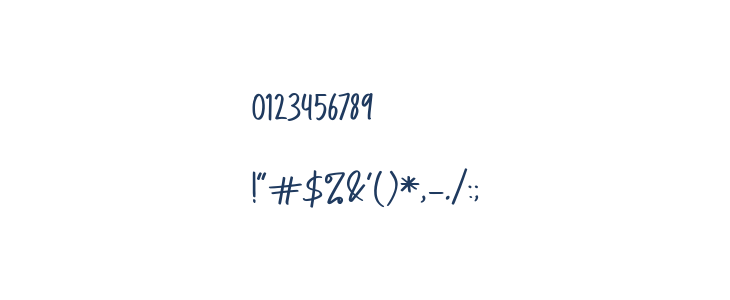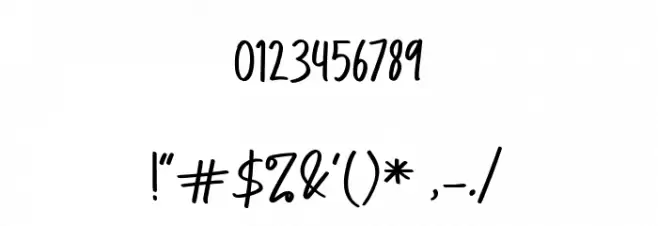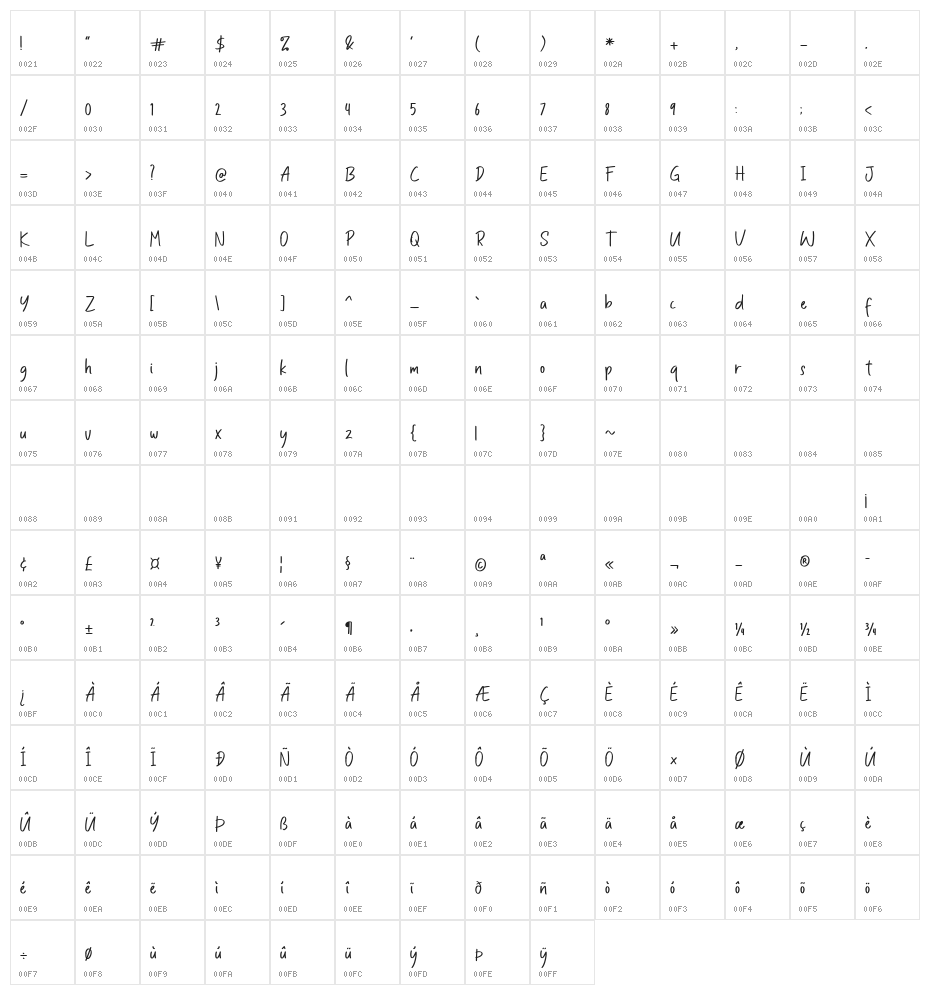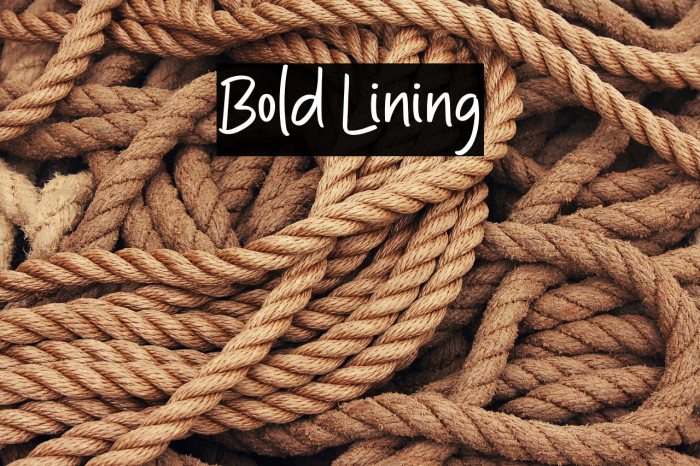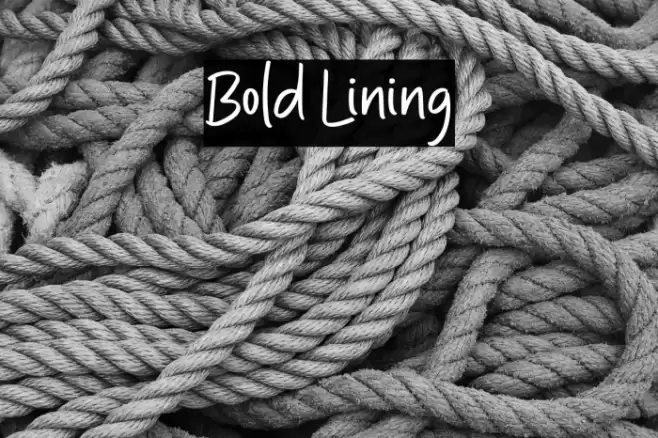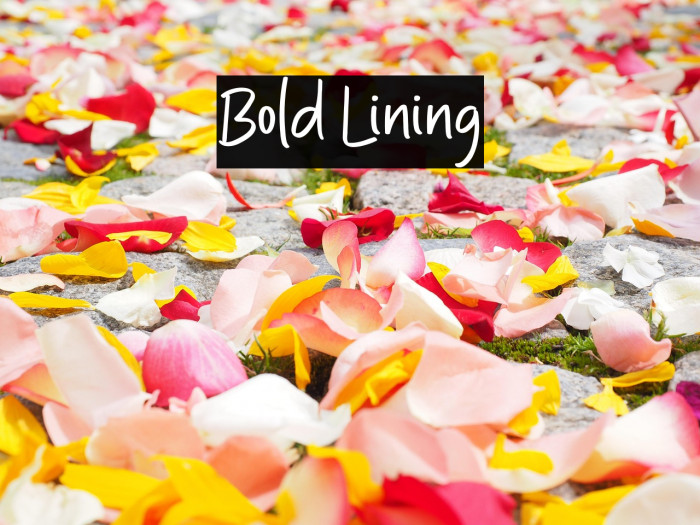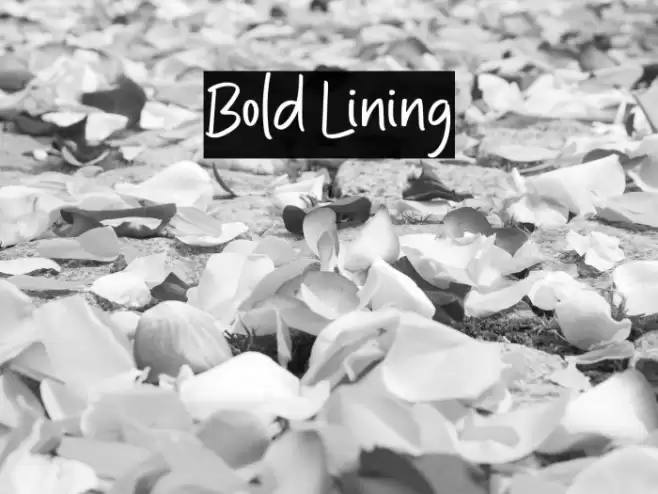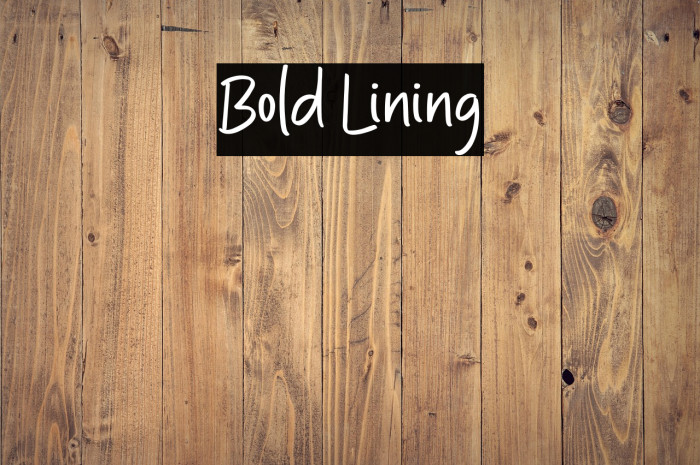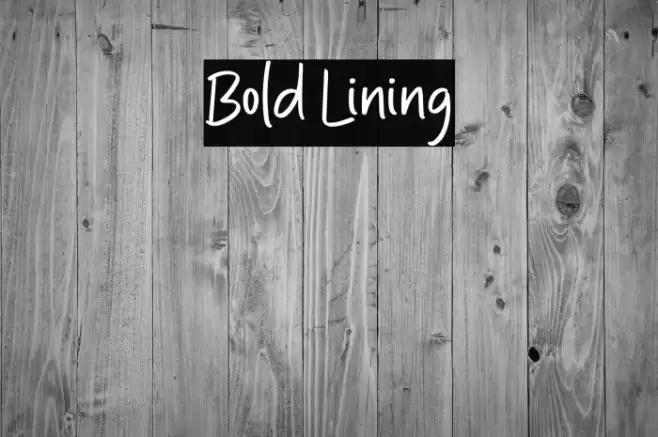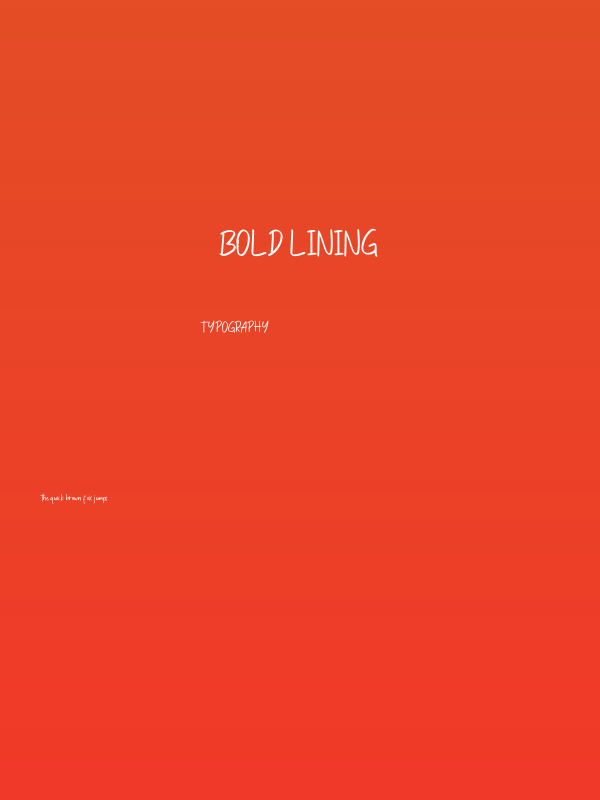
Bold Lining Font
Bold Lining Description
This font features a handwritten style with a casual and friendly appearance. The letters are slightly slanted, giving it an informal and approachable feel. The strokes are consistent in width, creating a uniform look across all characters. The uppercase letters are bold and prominent, while the lowercase letters maintain a playful and relaxed vibe. The numerals are clear and easy to read, matching the overall style of the font. Special characters are well-integrated, maintaining the same handwritten aesthetic. This font is versatile and can be used in various design projects that require a personal touch.
| Proposed Projects | Ideal for greeting cards, invitations, personal branding, and social media graphics. |